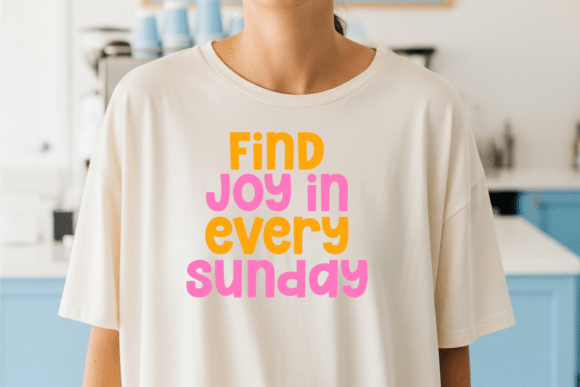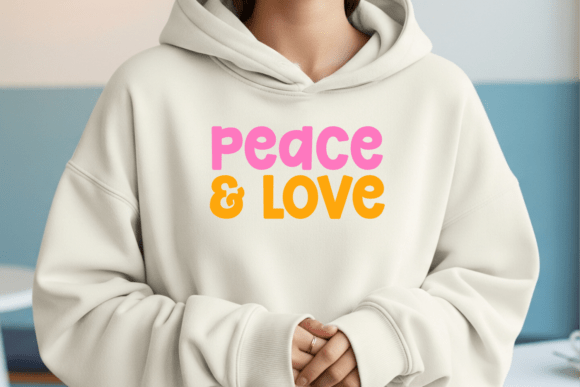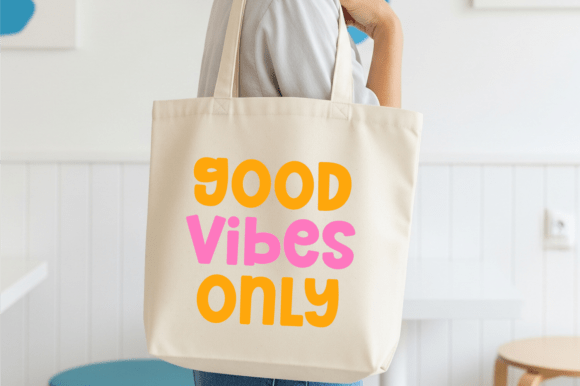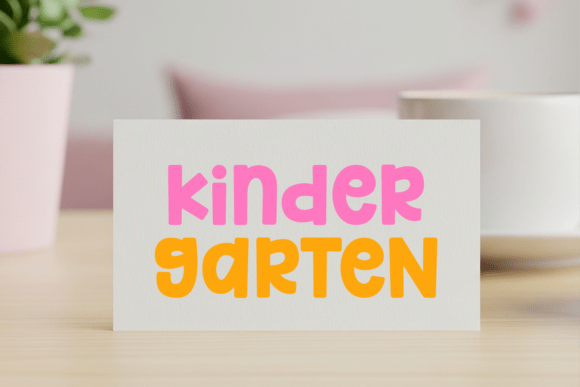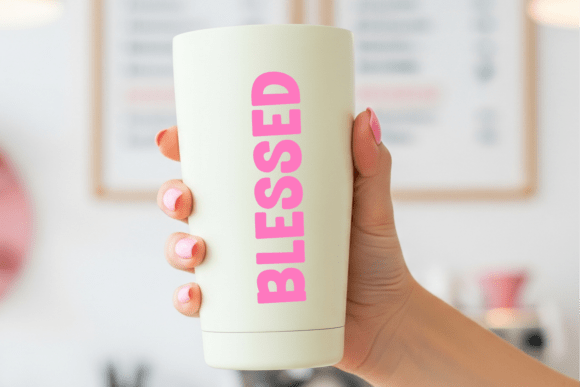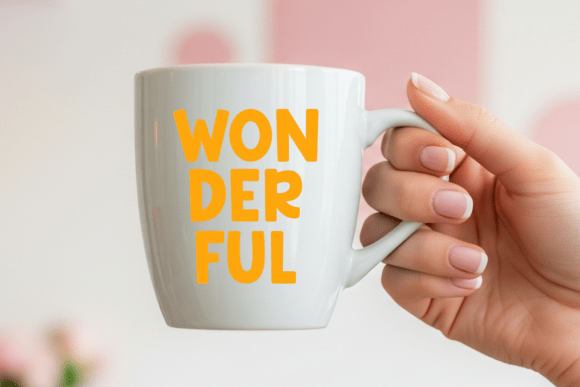
Find Your Inner Peace in Typography
There’s something magical about a quiet Sunday morning, surrounded by the soft glow of morning light and the gentle hum of a coffee brewer. It’s a moment of serenity, a chance to slow down and let your creativity breathe. As a designer, you know that finding the right font can make all the difference in capturing that feeling and conveying it to your audience.
Enter the Calm Sunday Font, a beautiful display font designed to bring a sense of peace and warmth to all your creative projects. With its soft, rounded edges and balanced weight, this font is the perfect choice for minimalist branding, heartfelt quotes, and elegant logo designs. Whether you’re working on a custom apparel project or designing packaging for a new product, the Calm Sunday Font is sure to add a touch of serenity to your work.
Calm Sunday Font Key Features
- Unique Characteristics: Calm Sunday Font features a unique blend of modern and classic elements, with a focus on clean lines and elegant curves.
Calm Sunday Font Review
I recently had the chance to work with the Calm Sunday font, and I must say, it’s a great addition to any design project. Here are some of the things that stood out to me:
- ✨ Elegant and refined aesthetic: The Calm Sunday font has a soothing quality to it, making it perfect for projects that require a sense of calmness and serenity.
- ✨ Versatility: This font can be used for a wide range of projects, from branding to editorial content, and it looks great in both print and digital formats.
- ✨ Beautiful ligatures: The font has some lovely ligatures that add to its overall charm and make it stand out in text-heavy content.
- ⚠️ Limited language support: Unfortunately, the Calm Sunday font only supports a limited number of languages, which may be a concern for projects that require multilingual support.
- ⚠️ Not ideal for headlines: While the font looks great for body text, it may not be the best choice for headlines, as it can get lost in the noise.
Overall, I think the Calm Sunday font is a great addition to any design project. Its elegant aesthetic and versatility make it a solid choice, but be aware of its limitations before making a decision.
Tips for Getting the Most Out of Calm Sunday Font
Combine Calm Sunday Font with other fonts to create a unique look.
Use Calm Sunday Font in conjunction with images and graphics to create a cohesive design.
Common Use Cases for Calm Sunday Font
Calm Sunday Font is well-suited for:
Editorial and magazine design
Print and digital advertising
Alternatives to Calm Sunday Font for Designers
Lato is a sans-serif font that offers a clean and modern look, suitable for a wide range of designs, from corporate materials to personal projects. It has a similar feel to Calm Sunday Font, but with a more minimalist approach.
When to use: Lato is ideal for creating a professional and clean design, especially for websites, mobile apps, and print materials. It’s a great alternative to Calm Sunday Font when you need a more modern and sleek look.
Montserrrat is a sans-serif font that originated from a sign typography in a neighborhood in Buenos Aires. It’s highly legible and versatile, making it perfect for various design projects, including branding, web design, and editorial content.